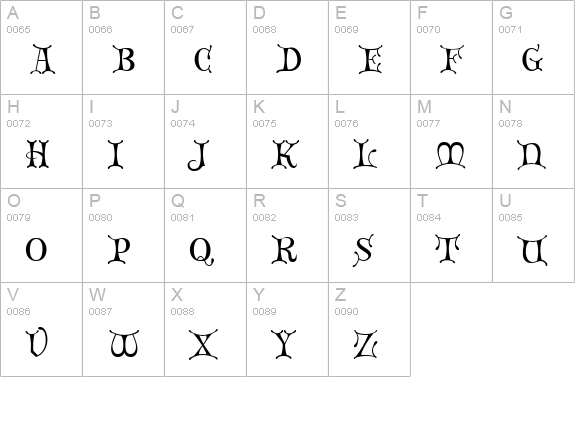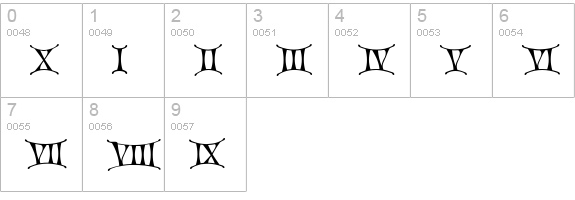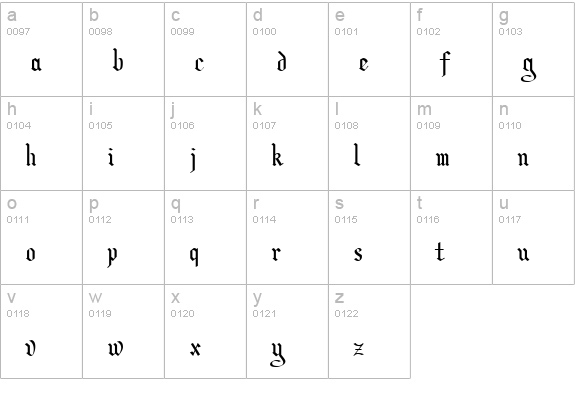
Christmas Card Font Details
The Christmas Card font is the perfect choice for adding a touch of festive charm to your holiday projects. With its whimsical and decorative lettering, this font captures the spirit of the season in a delightful way. Whether you're creating greeting cards, invitations, or other Christmas-themed designs, this font will bring a joyful and merry feel to your work. Best of all, the Christmas Card font is available for free download at FontsMarket.com. This means you can easily access this delightful font and use it in your projects without any cost. Spread the holiday cheer with the Christmas Card font and create beautiful designs that capture the magic of Christmas.